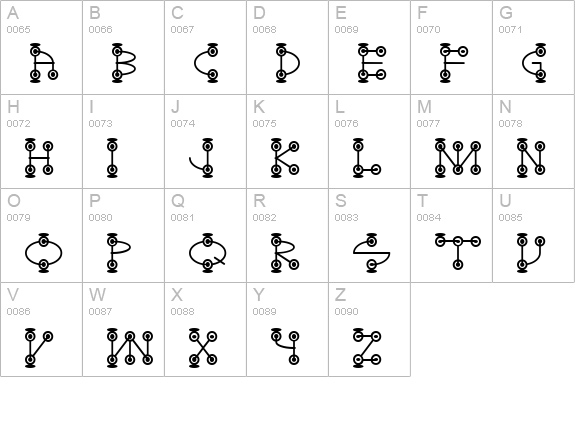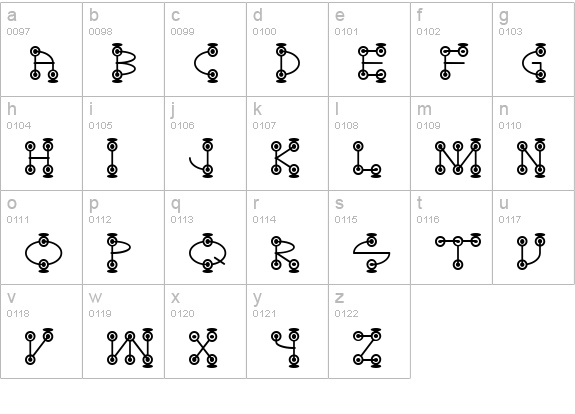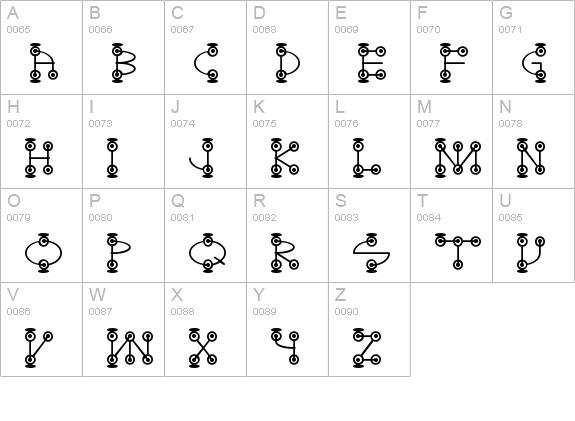
GalactoseTWO font is a striking and innovative typeface that will capture your imagination and elevate your designs to new heights. With its unique blend of sleek lines and futuristic elements, this font is perfect for projects that require a touch of modernity and sophistication. What sets GalactoseTWO font apart is not just its stunning aesthetics, but also its accessibility. This font is available for free, allowing designers and creatives from all walks of life to freely incorporate it into their projects. Whether you're working on a personal website, a professional presentation, or a creative branding campaign, GalactoseTWO font is the ideal choice to make your work stand out. Downloading GalactoseTWO font is quick and easy. Simply head over to FontsMarket.com, a trusted online platform for font enthusiasts, where you can freely access and download this incredible typeface. The website offers a seamless user experience, ensuring that you can effortlessly find and acquire GalactoseTWO font with just a few clicks. Once you have GalactoseTWO font in your design arsenal, you'll have endless possibilities at your fingertips. Its clean and futuristic design lends itself well to a variety of applications, including logos, headlines, posters, and more. The versatility of this font allows you to effortlessly convey your message and captivate your audience. Don't miss out on the opportunity to enhance your designs with GalactoseTWO font. Download it for free today at FontsMarket.com and let your creativity soar to new galaxies.